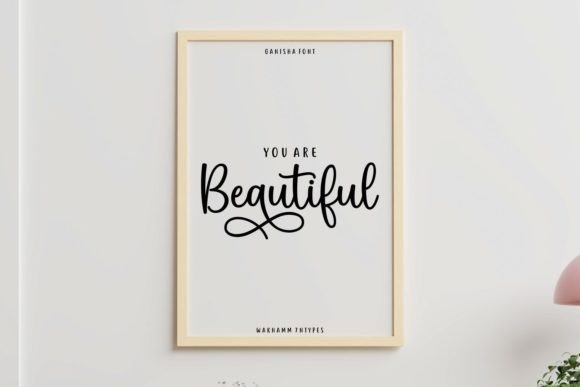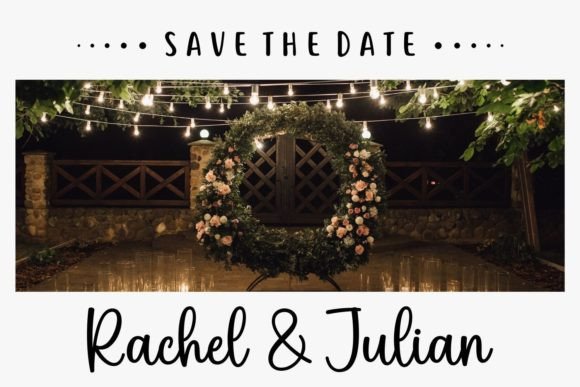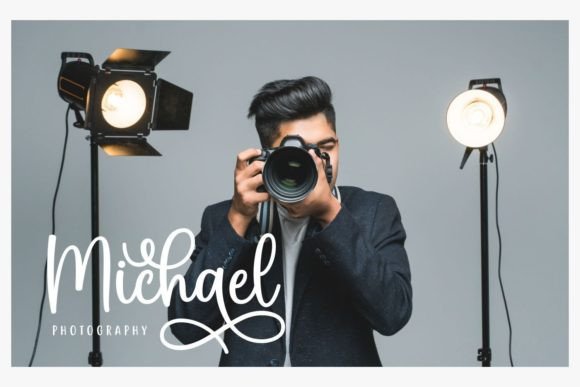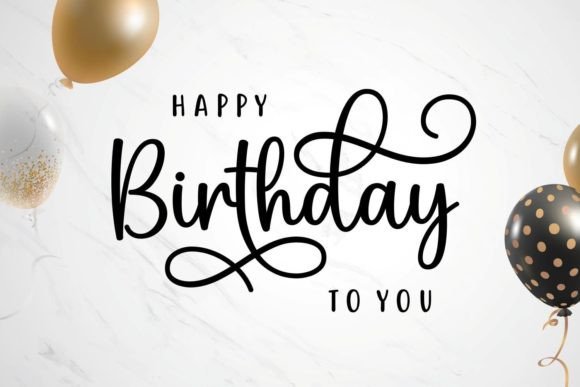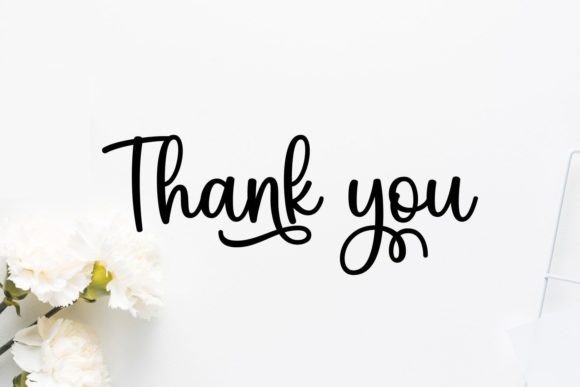
Introducing Ganisha Font: Elevate Your Designs with Elegance and Personality
Are you looking for a font that can add a touch of sophistication and modernity to your design projects? Look no further than Ganisha Font, a stunning script font that is sure to take your creations to the next level. With its elegant and flowing lines, Ganisha is perfect for designers and crafters who want to add a dash of personality to their work.
What Makes Ganisha Font So Special?
Ganisha Font is a beautiful and modern script font that is designed to help you create stunning designs with ease. Its elegant and cursive lines make it perfect for a variety of projects, including invitations, branding, quotes, greeting cards, and so much more. Whether you’re a professional designer or a crafty DIY enthusiast, Ganisha Font is sure to become a favorite in your collection.
One of the standout features of Ganisha Font is its PUA (Private Use Area) encoding. This means that you can access all of the glyphs and swashes with ease, giving you complete creative control over your designs. With PUA encoding, you can easily access the font’s built-in features, such as ligatures, stylistic alternates, and swashes, to create truly unique and eye-catching designs.
With Ganisha Font, the design possibilities are endless. Here are just a few ideas to get you started:
- Invitations: Create beautiful wedding invitations, birthday invitations, or any other type of invitation that makes a lasting impression.
- Branding: Use Ganisha Font to create stunning logos, business cards, and letterheads that showcase your brand’s personality and style.
- Quotes: Add a touch of elegance to your quote designs with Ganisha Font’s flowing lines and beautiful swashes.
- Greeting Cards: Create heartfelt greeting cards for any occasion, from birthdays to holidays.
- Social Media Graphics: Use Ganisha Font to create eye-catching social media graphics that stand out from the crowd.
Why Choose Ganisha Font?
So why choose Ganisha Font over other script fonts on the market? Here are just a few reasons:
- Unique and Modern Design: Ganisha Font features a unique and modern design that is sure to make your designs stand out.
- Elegant and Versatile: Ganisha Font is elegant and versatile, making it perfect for a wide range of design projects.
- Easy to Use: With PUA encoding, Ganisha Font is easy to use, even for designers who are new to script fonts.
- High-Quality: Ganisha Font is a high-quality font that is designed to deliver exceptional results.
| Font Name | Ganisha Font |
| Author | Wakhamm (7NTypes) |